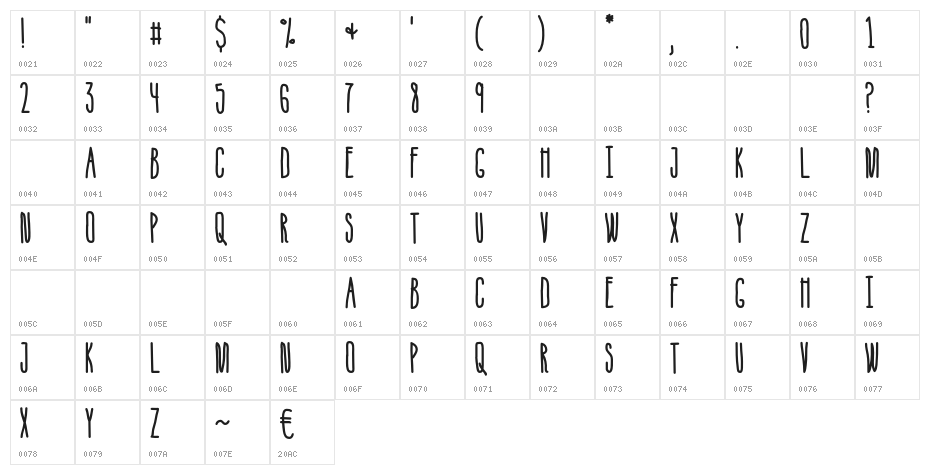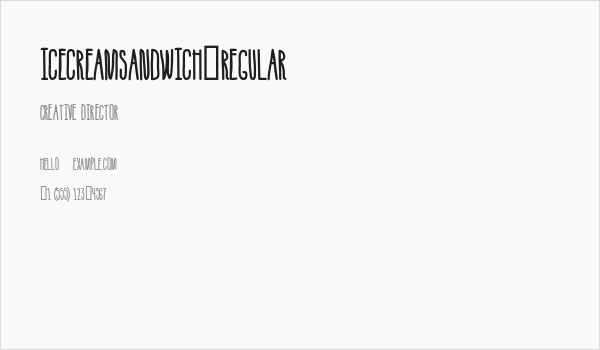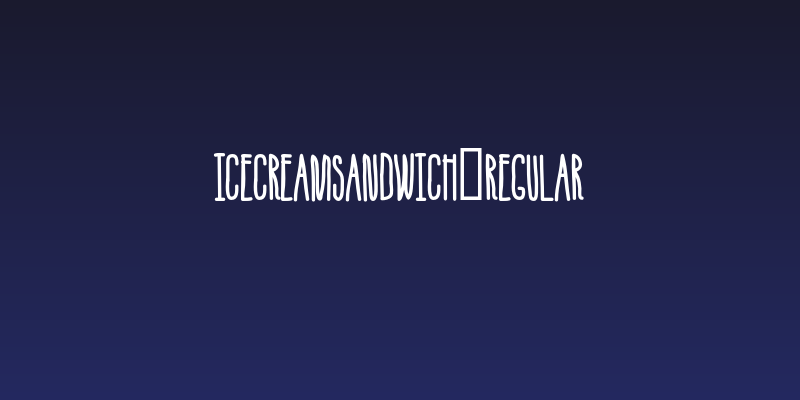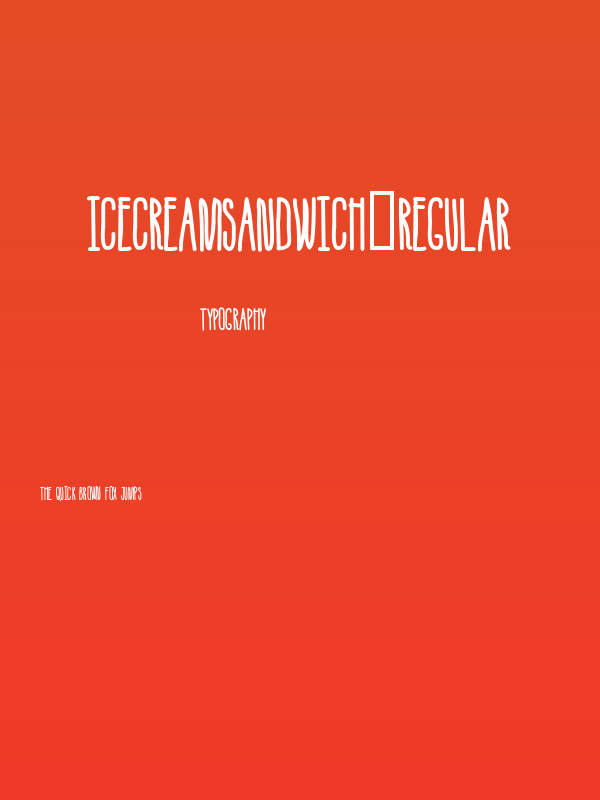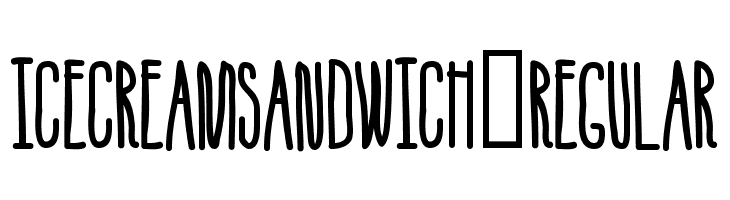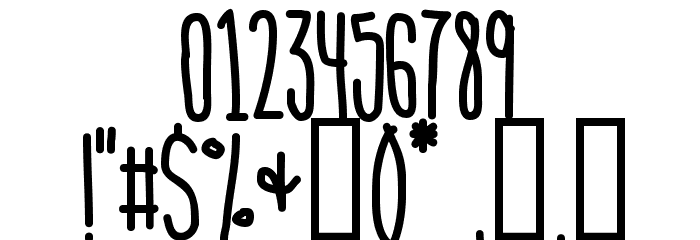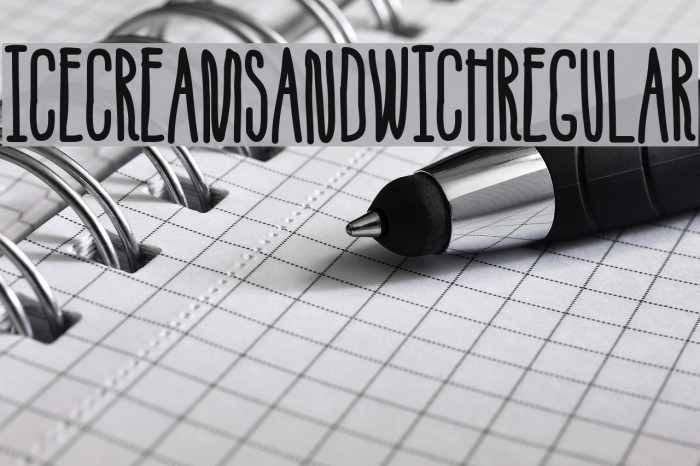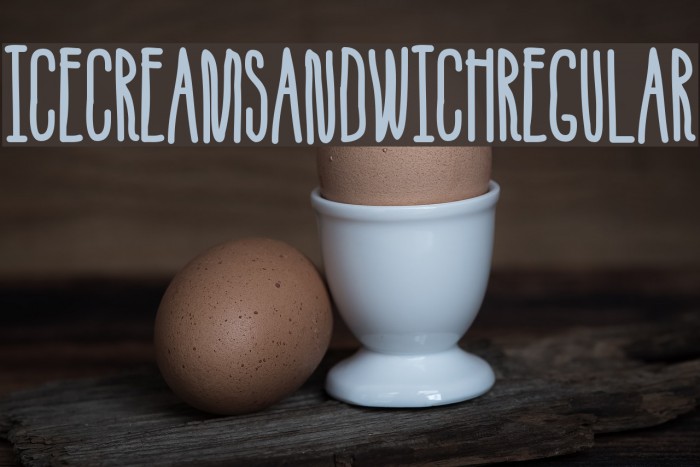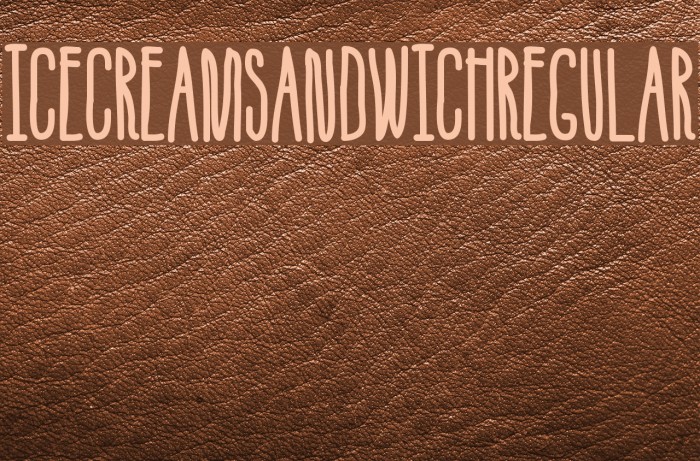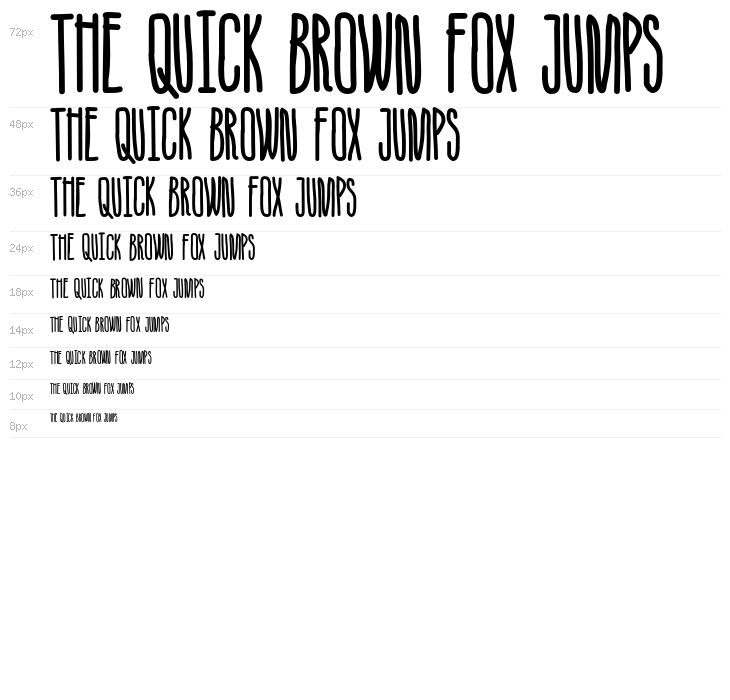
IceCreamSandwich-Regular Font
This playful and quirky font features tall, narrow letters with a hand-drawn appearance. The strokes are uneven, giving it a casual and informal feel. The uppercase and lowercase letters maintain a consistent style, with elongated forms and rounded edges. The numbers and special characters follow the same whimsical design, making it suitable for creative projects. The font's unique character is emphasized by its irregular stroke thickness, adding to its charm and appeal.